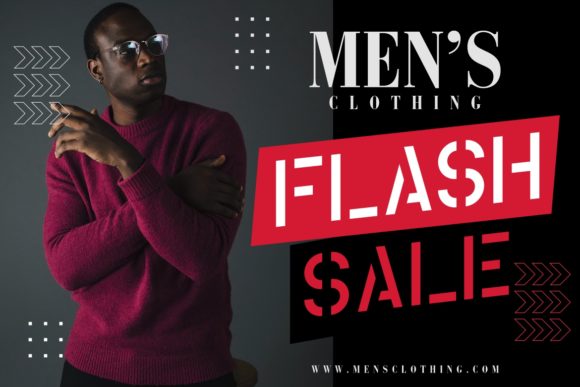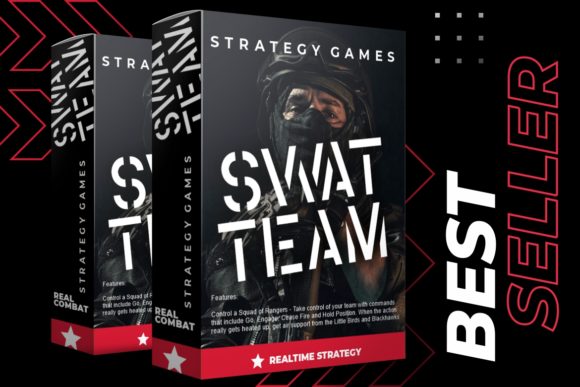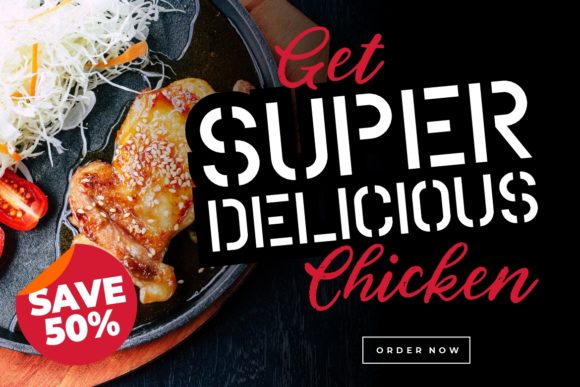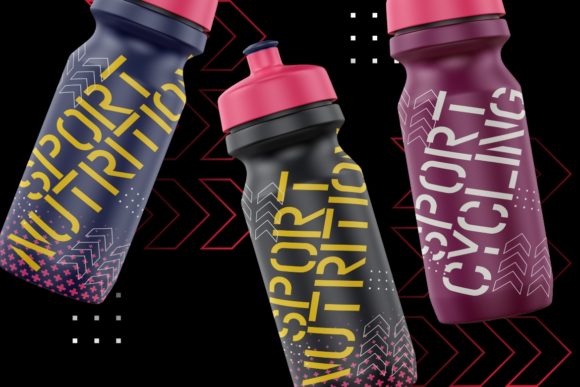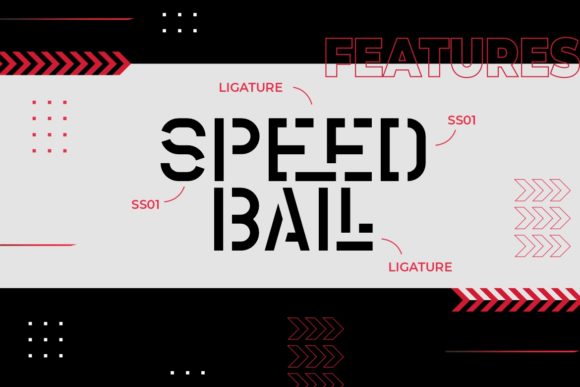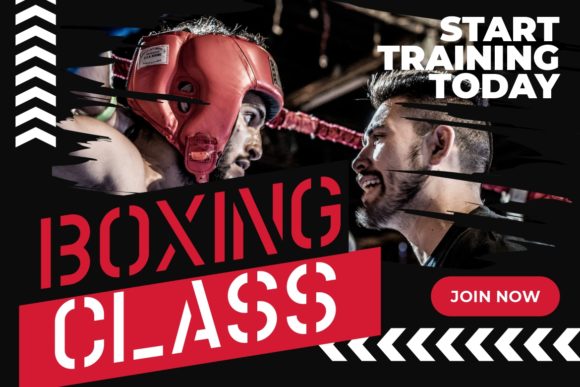
Coutline Stencil Typeface Font: Elevate Your Designs with a Military-Inspired Aesthetic
Are you a designer or crafter looking for a unique and versatile font to elevate your projects? Look no further than Coutline, an all-caps sans serif font that combines the ruggedness of military design with the edginess of urban graffiti. In this article, we’ll dive into the features and benefits of Coutline, and explore how it can be used to take your branding, advertising, and design projects to the next level.
Inspired by Military Design and Urban Graffiti
Coutline’s design is rooted in the bold, stencil-like typography often seen in military and urban graffiti contexts. The font’s clean lines, sharp edges, and industrial feel make it perfect for projects that require a strong, rugged aesthetic. Whether you’re designing a logo, label, or advertisement, Coutline’s unique character is sure to grab attention and leave a lasting impression.
Coutline is an incredibly versatile font that can be used for a wide range of design projects, including:
- Branding projects: Create a bold, memorable brand identity with Coutline’s unique typography.
- Logo design: Use Coutline to craft a striking logo that stands out from the crowd.
- Wedding designs: Add a touch of industrial chic to your wedding invitations, stationery, and decor with Coutline.
- Social media posts: Elevate your social media presence with eye-catching graphics and typography.
- Advertisements: Grab attention and drive engagement with Coutline’s bold, attention-grabbing font.
- Product packaging: Stand out on store shelves with Coutline’s unique typography and design.
- Product designs: Add a touch of industrial style to your product designs, from fashion to home decor.
- Labels: Create bold, easy-to-read labels for your products or projects.
- Photography: Use Coutline to add a touch of personality to your photo watermarks and captions.
- Invitations: Create unique, eye-catching invitations for any occasion.
- Stationery: Add a touch of industrial chic to your stationery and correspondence.
One of the standout features of Coutline is its PUA (Private Use Area) encoding. This means that you can access all of the font’s glyphs and swashes with ease, giving you maximum flexibility and creative control. With Coutline, you can:
- Access a wide range of alternative characters and glyphs.
- Create custom typography and lettering.
- Add unique flourishes and swashes to your designs.
Why Choose Coutline?
So why choose Coutline for your design projects? Here are just a few reasons:
- Unique aesthetic: Coutline’s military-inspired design sets it apart from other fonts on the market.
- Versatility: Coutline can be used for a wide range of design projects, from branding to advertising.
- Easy to use: Coutline’s PUA encoding makes it easy to access all of the font’s glyphs and swashes.
- High-quality design: Coutline is designed to high standards, ensuring crisp, clear typography at any size.
In conclusion, Coutline is a versatile and unique font that’s perfect for designers and crafters looking to add a touch of industrial chic to their projects. With its military-inspired design, PUA encoding, and wide range of uses, Coutline is an excellent choice for anyone looking to elevate their designs and stand out from the crowd.